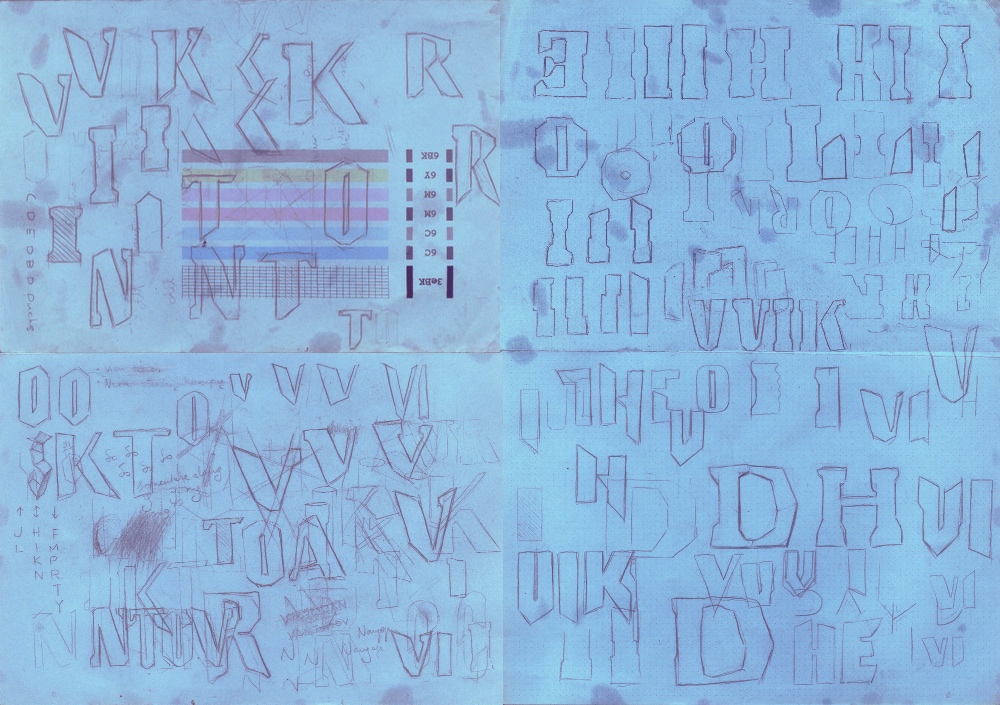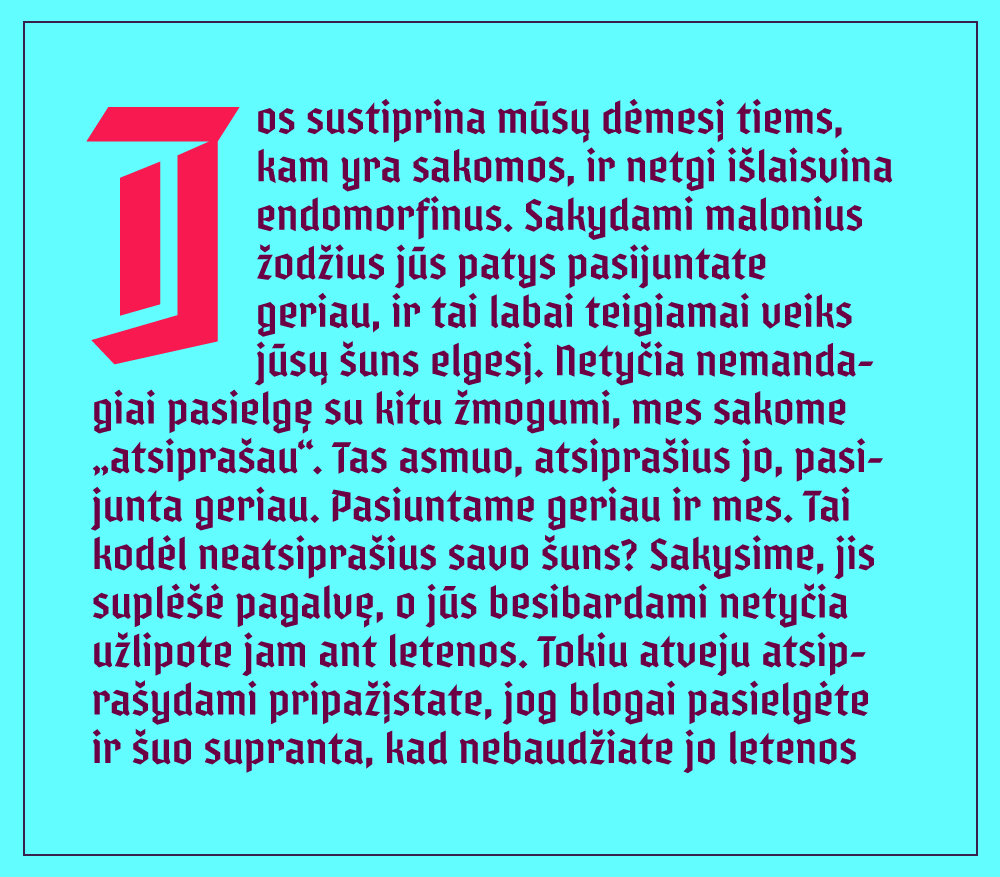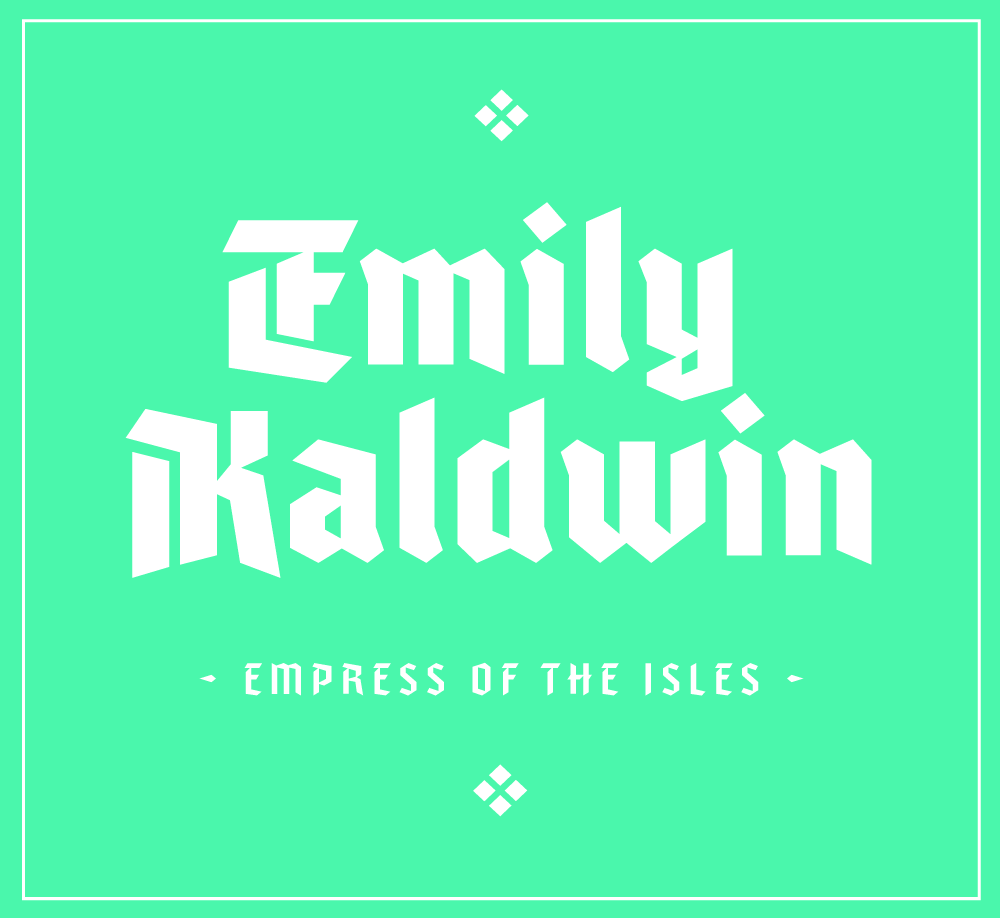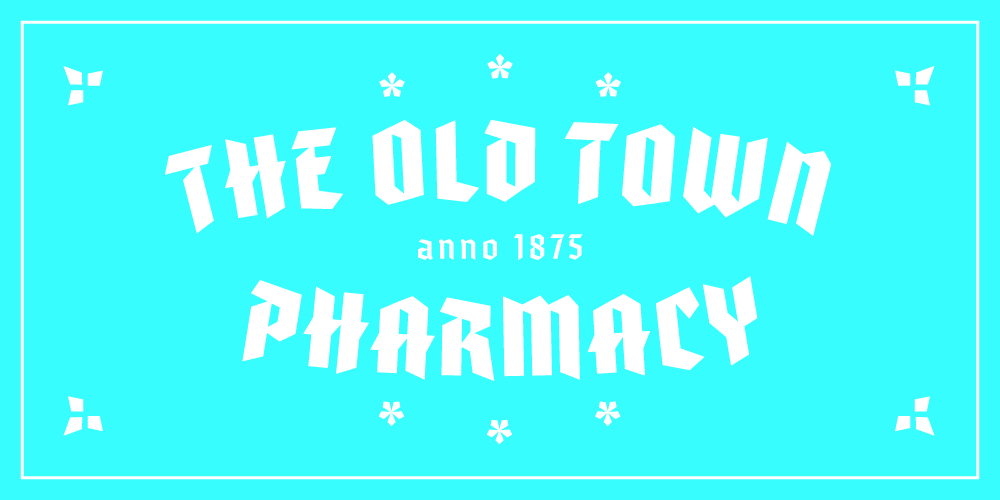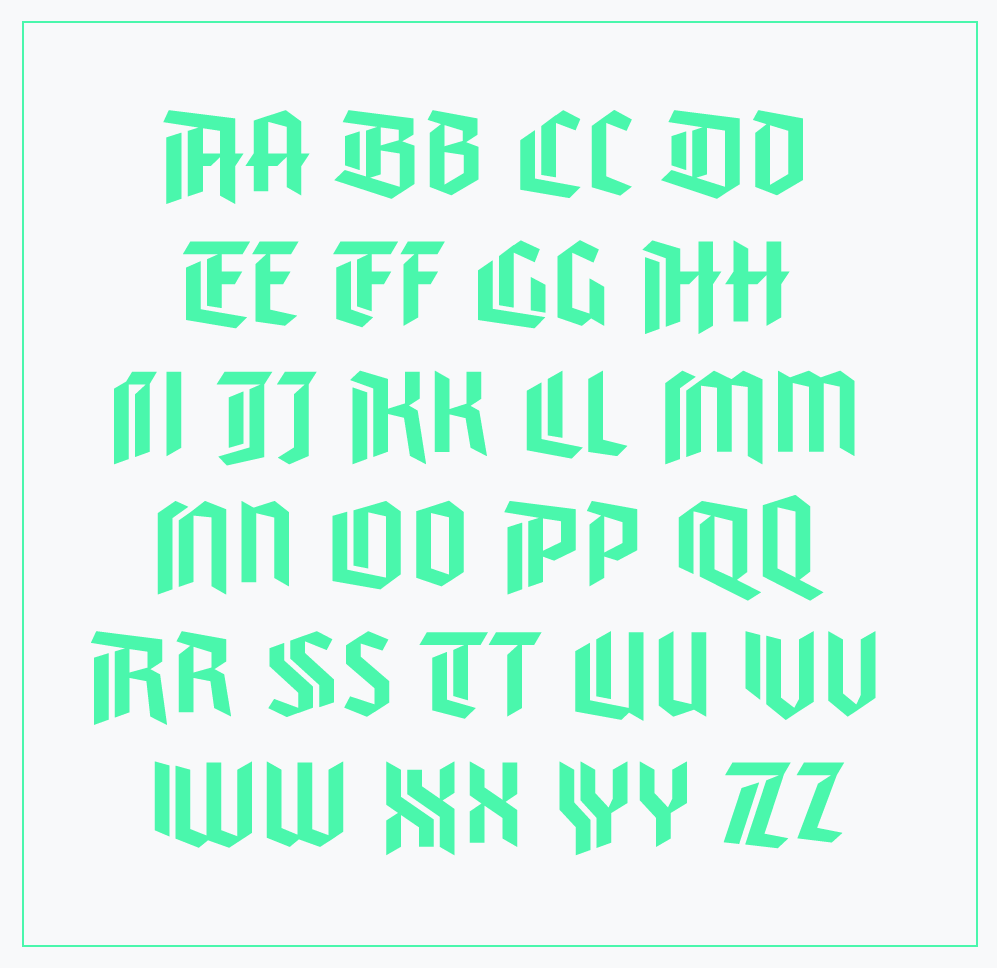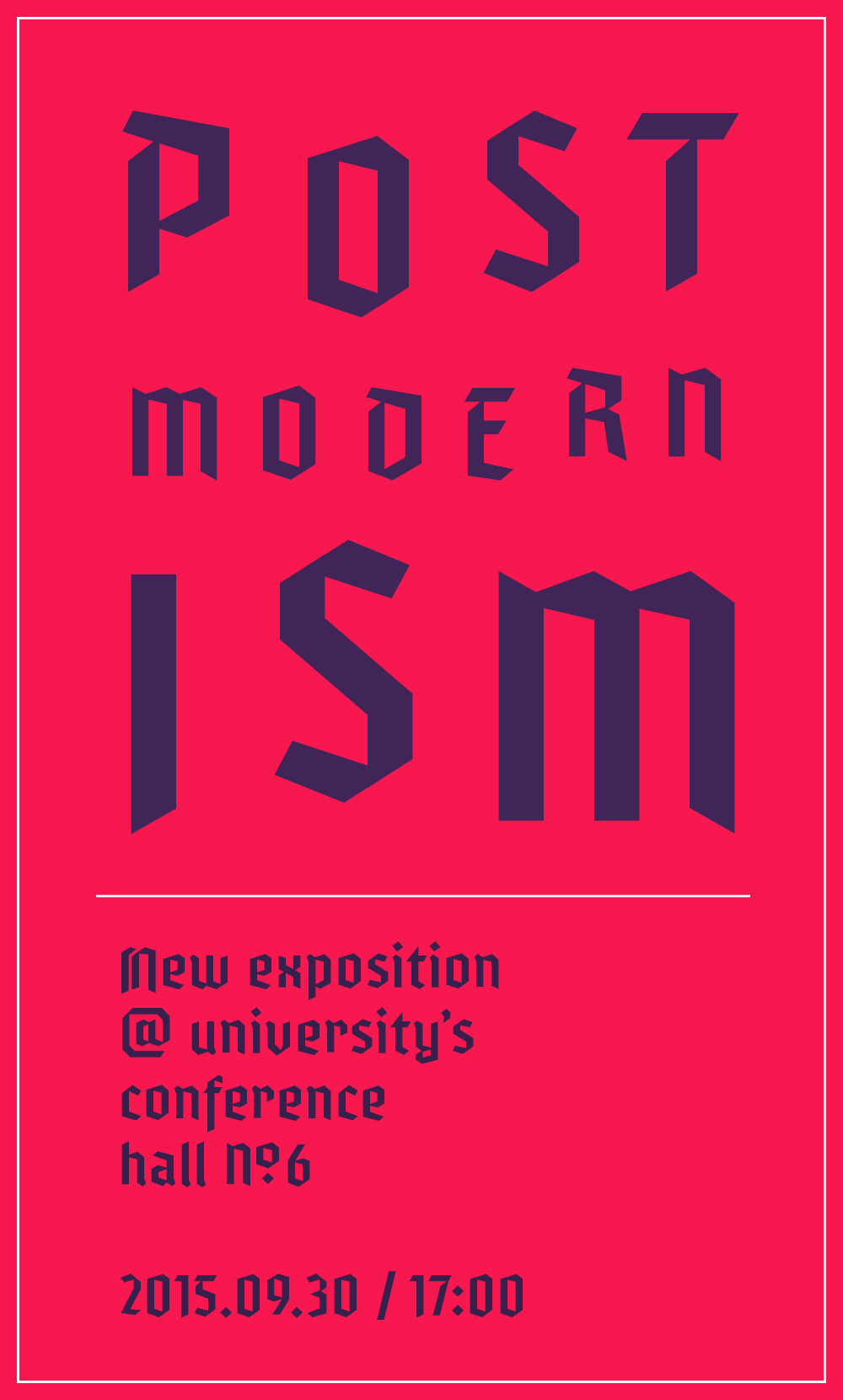
Varna (free font)
A modern blackletter typeface inspired by designer/artist Viktor Antonov, who’s signature style is an amalgamation of classic and modern, rustic and high-tech. He’s most famous for his art direction in games like Half-Life 2 and Dishonored. I tried to imagine what would “futuristic blackletter” in one of his worlds would look like.
Viktor is from Bulgaria and one of its cities is Varna. By coincidence, the word in Lithuanian also means “crow”. I find it fitting for a blackletter.